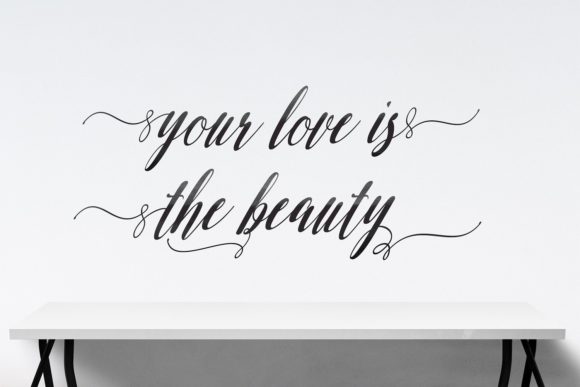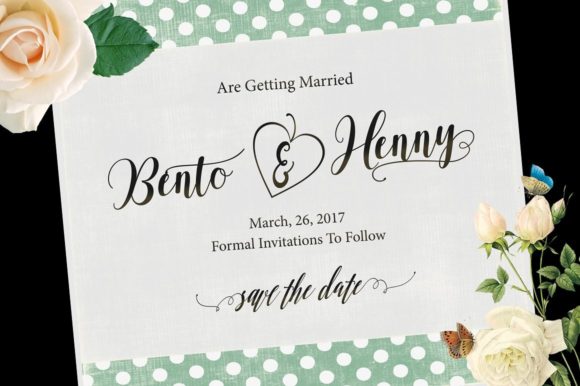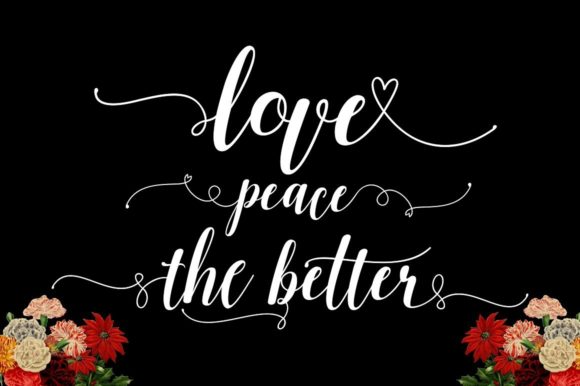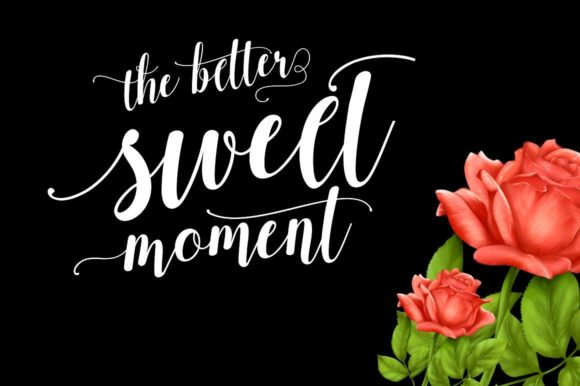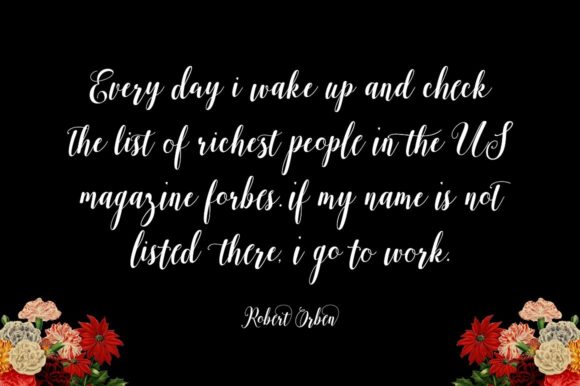
Discover the Magic of Austtria Font
As a designer, have you ever found yourself staring at a blank canvas, searching for the perfect font to bring your creative vision to life? The struggle is real, but today, we’re excited to introduce you to a game-changer: Austtria Font. This stunning, modern handwritten font is designed to add a touch of elegance and whimsy to your designs.
Austtria Font is the perfect solution for designers who want to create beautiful, eye-catching designs that stand out from the crowd. With its cursive flow and soft design style, this font is ideal for wedding invitations, party invitations, blog designs, graduation designs, and more. Its PUA encoding ensures that you can access all of the glyphs and swashes with ease, making it a valuable addition to your design toolkit.
- Unique Characteristics: Austria Font features a unique blend of modern and traditional design elements, with a focus on elegance and sophistication
Austtria Font Review
Austtria Font is a unique and eye-catching font that can add a touch of elegance to your designs. Here’s what I think works well:
- ✨ The font’s bold and playful feel makes it perfect for titles and headings.
- ✨ Austtria Font’s wide range of weights and styles offers a lot of flexibility for designers.
- ✨ The font’s intricate details and flourishes add a level of sophistication and refinement.
- ⚠️ Austtria Font can be overwhelming when used extensively, so it’s best to use it sparingly.
- ⚠️ The font’s complexity can make it difficult to read at smaller font sizes.
- ⚠️ Some users may find the font’s ornate details distracting or over-the-top.
Overall, I think Austtria Font is a great addition to any designer’s toolkit. While it may not be suitable for every project, it’s perfect for designs that need a touch of luxury and sophistication. With careful use, Austtria Font can elevate your designs and make them truly stand out.
Tips for Getting the Most Out of Austria Font
Use Austria Font to add a touch of elegance and sophistication to your designs. Pair it with bold fonts for maximum impact. Experiment with different font sizes and colors to create a unique look.
Austria Font is ideal for:
- Corporate branding and marketing materials
- Wedding and event signage
Alternatives to Austria Font for Designers
Playfair Display is a luxurious, elegant serif font that is ideal for use in high-end branding, luxury products, and sophisticated editorial designs. It features intricate details and flourishes, making it a great choice for creating a sense of opulence and refinement.
Comparison to Austria Font: While both fonts have a similar luxurious feel, Playfair Display is more ornate and detailed, making it a better choice for designs that require a high level of sophistication and elegance. Austria Font, on the other hand, has a more modern and sleek feel.
Great Vibes is a modern, elegant script font that is perfect for use in branding, packaging, and advertising designs. It features a flowing, cursive design that is both stylish and sophisticated.
Comparison to Austria Font: Great Vibes has a more fluid and dynamic feel compared to Austria Font, making it a better choice for designs that require a sense of movement and energy. Austria Font, on the other hand, has a more formal and structured feel.
Lato is a modern sans-serif font that is ideal for use in digital designs, such as websites and apps. It features a clean, simple design that is both legible and visually appealing.
Comparison to Austria Font: Lato has a more minimalist and modern feel compared to Austria Font, making it a better choice for digital designs that require a clean and simple aesthetic. Austria Font, on the other hand, has a more luxurious and sophisticated feel.